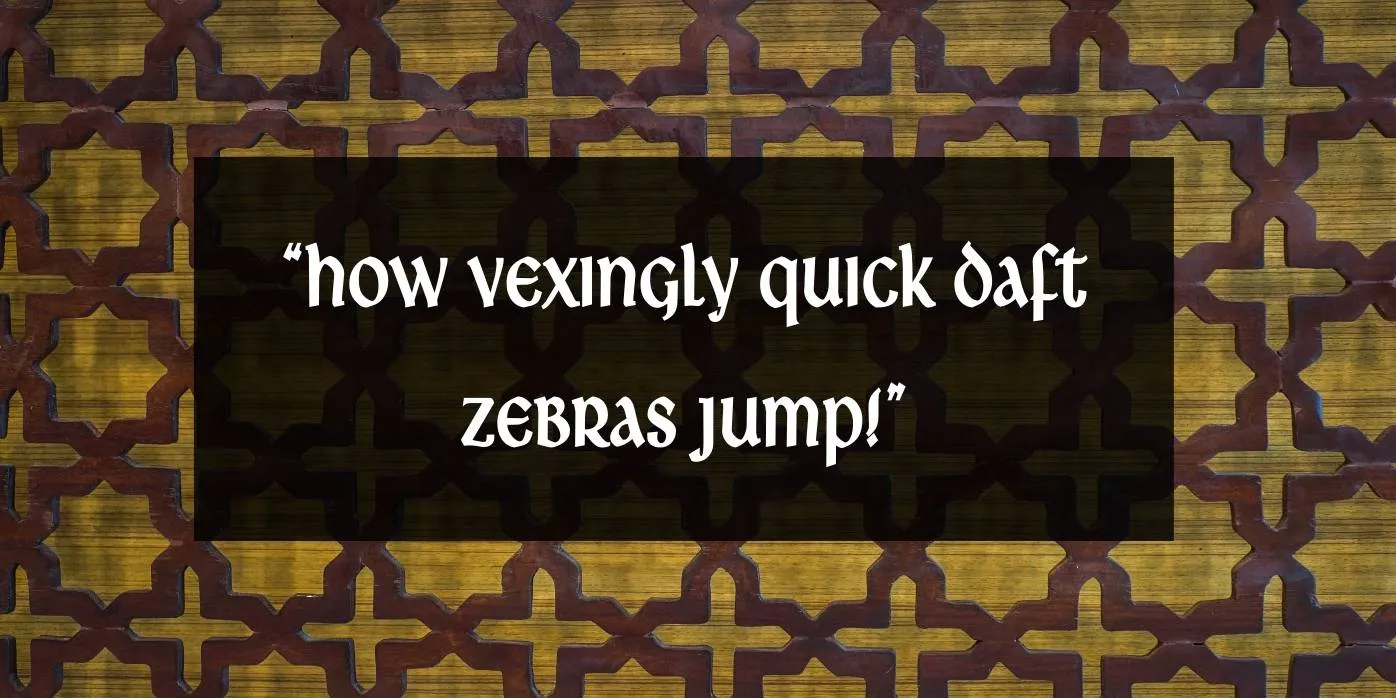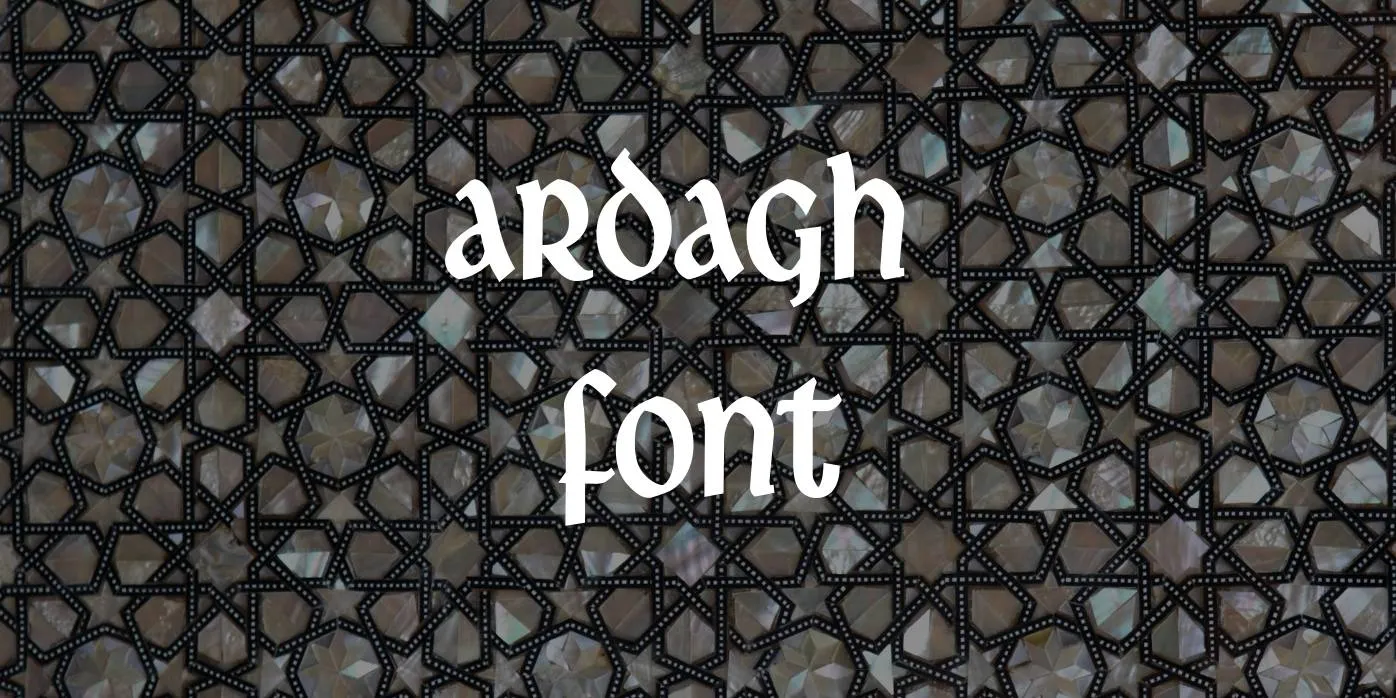
Ardagh Font
Today we are consulting on a very famous typeface named Ardagh Font. This gorgeous typeface belongs to the Gothic font family. Annnie Mason designs this beautiful font. It is particularly influenced by the Ardagh Chalice, an 8th-century metalwork piece found in Ireland.
This typeface comes in two styles including regular and decorative. Both styles contain more than 200 characters. You can use this font for both personal and commercial purposes. This stylish font includes various ligatures and alternative characters.
Ardagh Font supports Latin, Cyrillic, and Greek languages. So, you can use this multilingual font for various purposes. If you are looking for a stylish and classic typeface then it is perfect for your projects. You need o download this typeface and put it in your plans.